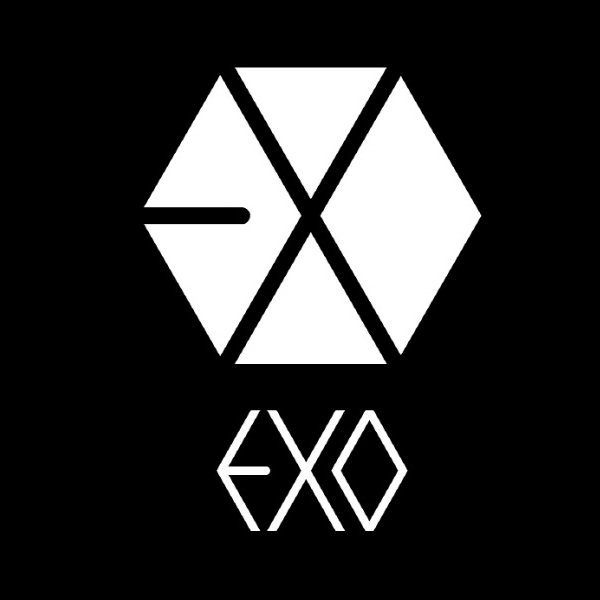
EXO Font
Fonts in UseEXO is a South Korean-Chinese boy band formed in 2011 with 9 members, known for their unique blend of pop, R&B, and hip-hop music styles. They have released multiple albums and have won numerous awards, cementing their status as one of the most popular K-pop groups worldwide.
Exo's logo features a white hexagonal honeycomb with integrated E, X, and O letters, set on a black background. The logotype uses a font similar to Exoziti, available only in capital letters, and can be downloaded for free from the Fonts USed Section.